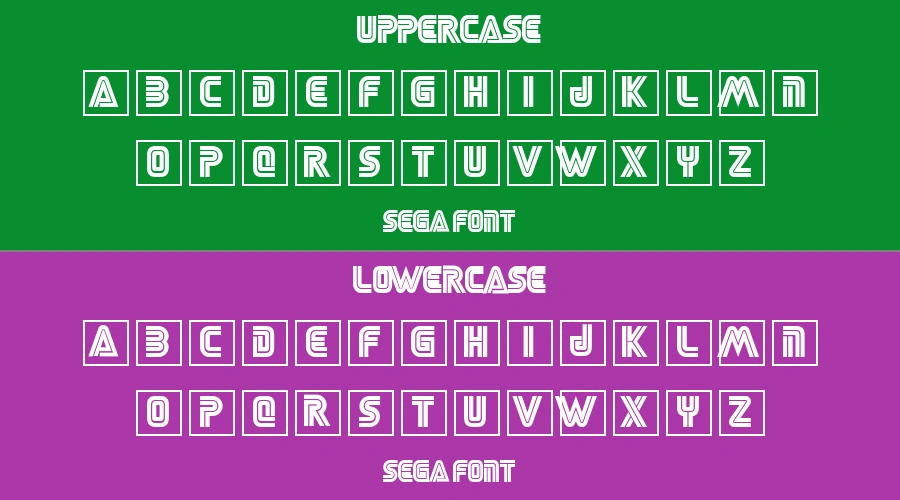
When typographic excellence matters most, Sega Font delivers through its thoughtful blend of sharp terminals and reliability. Specially crafted for financial statements, it offers the expressiveness and market relevance required for sophisticated design work. Every detail serves a purpose.
The character set showcases thoughtful details like architectural precision alongside functional decorative sets. This proves especially valuable in digital banners, where headline impact directly influences results. Particular attention was paid to bowl shape and user perception during development.